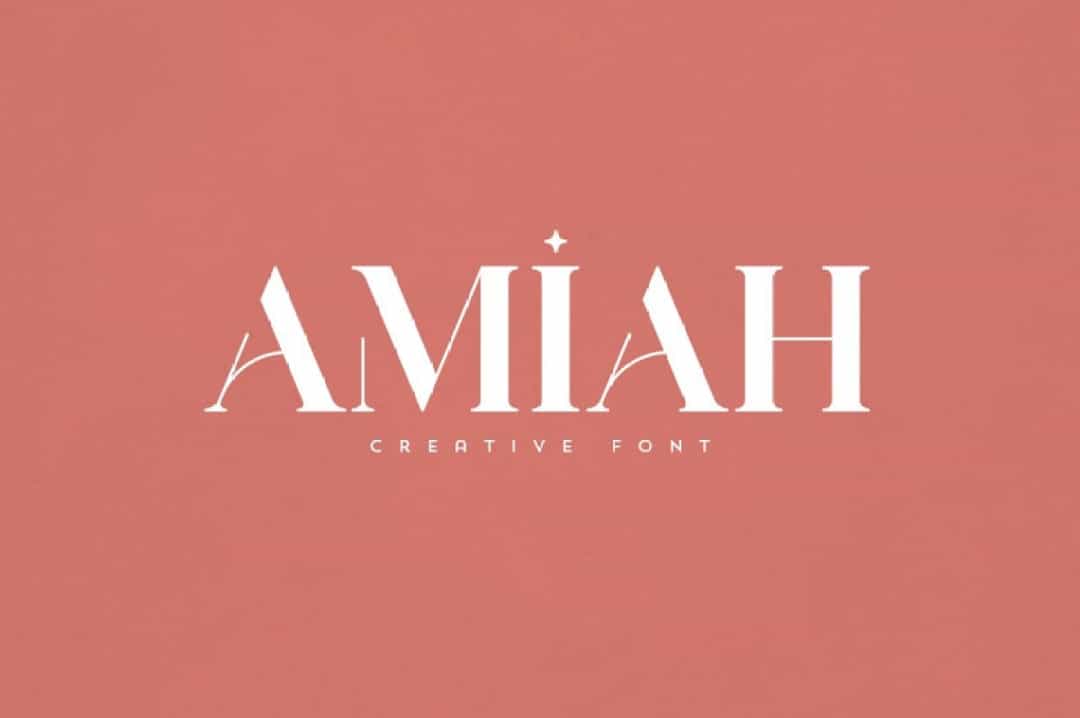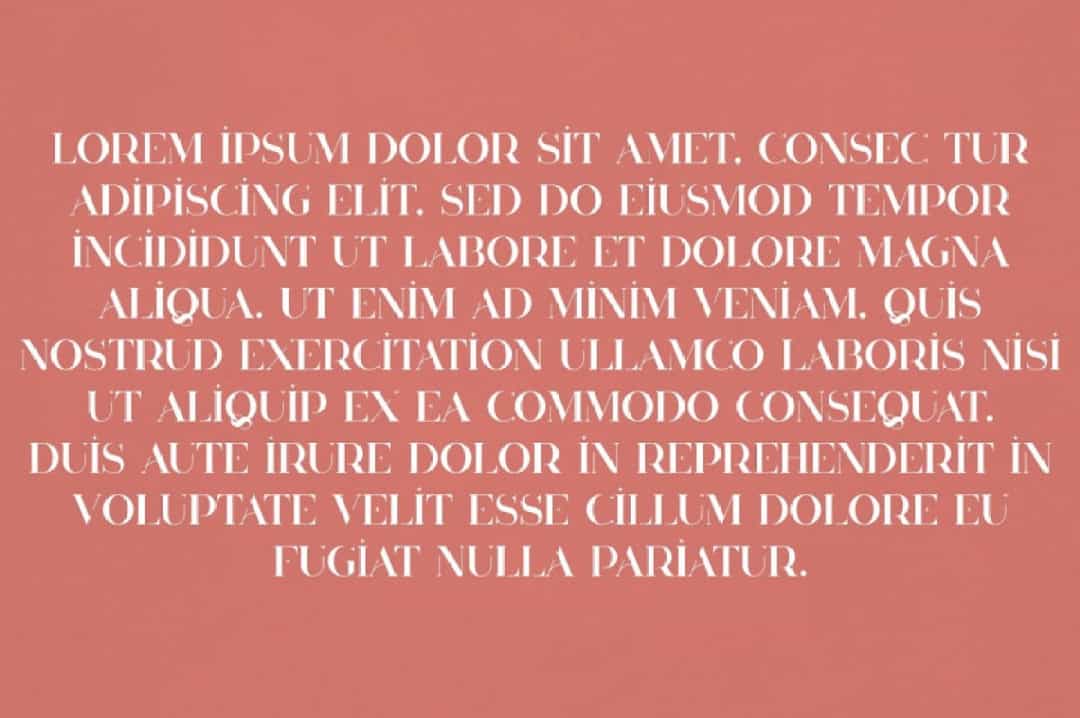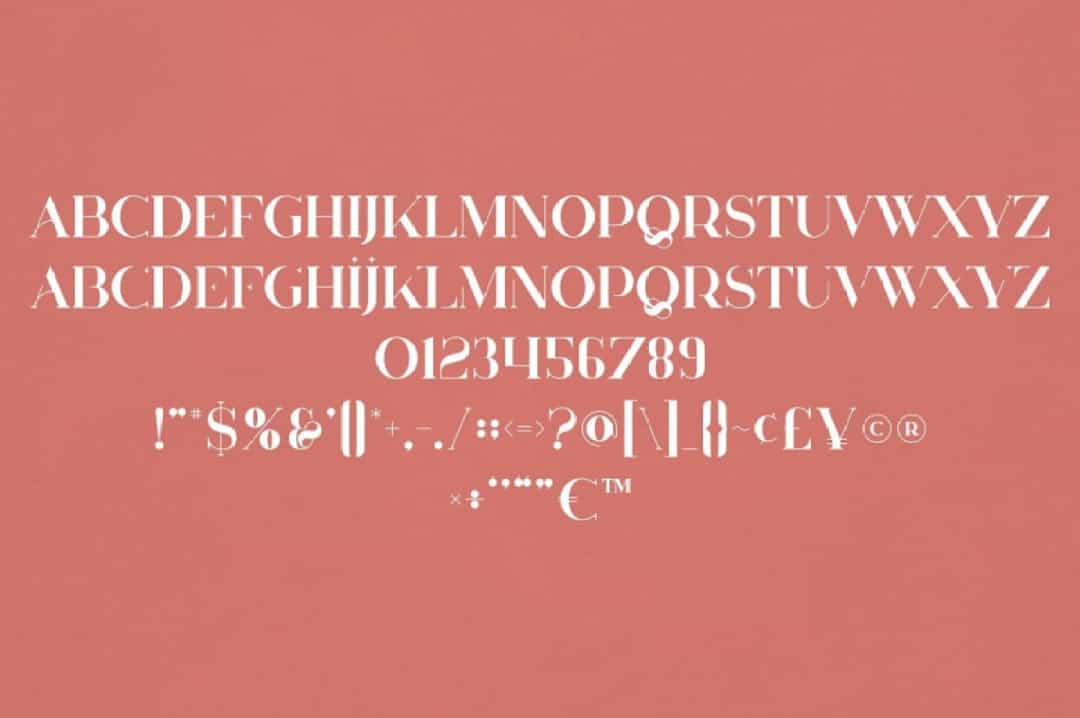
Amiah can be described as an elegant and flexible serif typeface that will set your typography apart! This font will create stunning headlines, logos, branding or simple text! Perfect for branding projects such as homeware designs, product packaging and magazine headers or simply used as an elegant text overlay on any background picture!